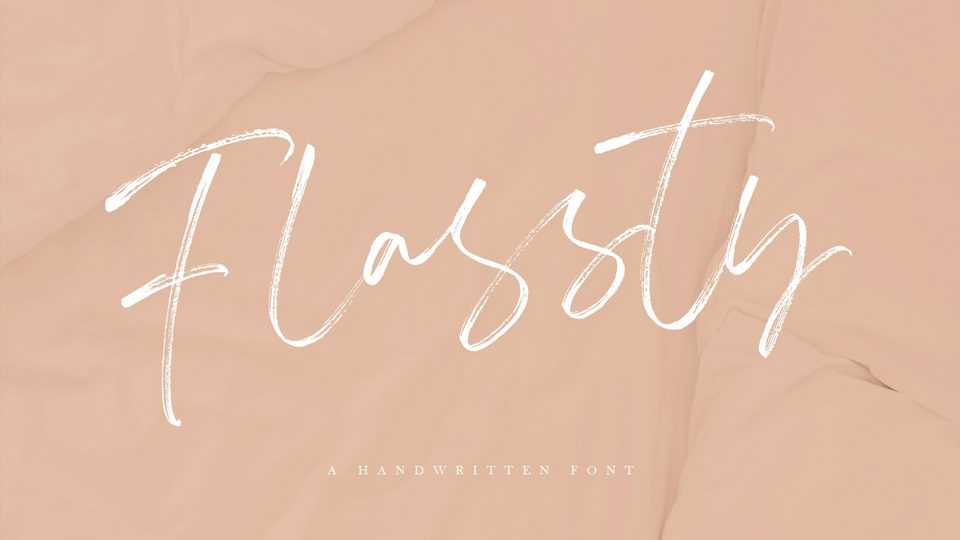
Download Flassty font, a hanwritten typeface with a textured brush and a thin size, matching soft quotes and looking feminine. Flassty is made by handwriting on paper with a coarse type brush, to produce a consistent texture.
Designer: Geranium Space